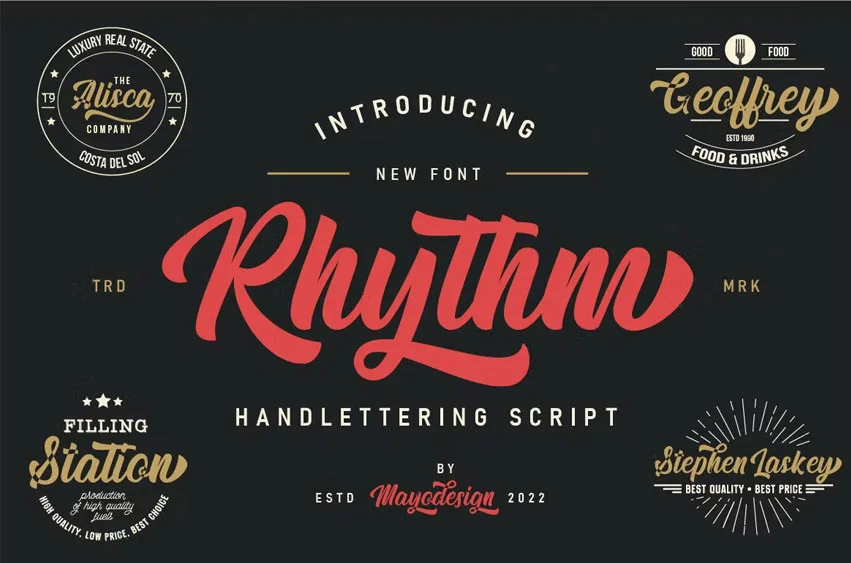
Rhythm Font
Rhythm Font is handlettering script font with lots of opentype features.his font is perfectly suited for a wide variety of projects, such as signature, stationery, logo, wedding, typography quotes, magazine or book cover, website header, clothing, branding, packaging design, and more.